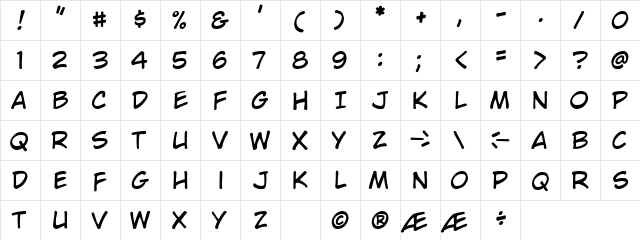
CC Wild Words Roman
Design Context for CC Wild Words Typeface
CC Wild Words is a composed and adaptable typeface that performs quietly and consistently across a wide range of design contexts.